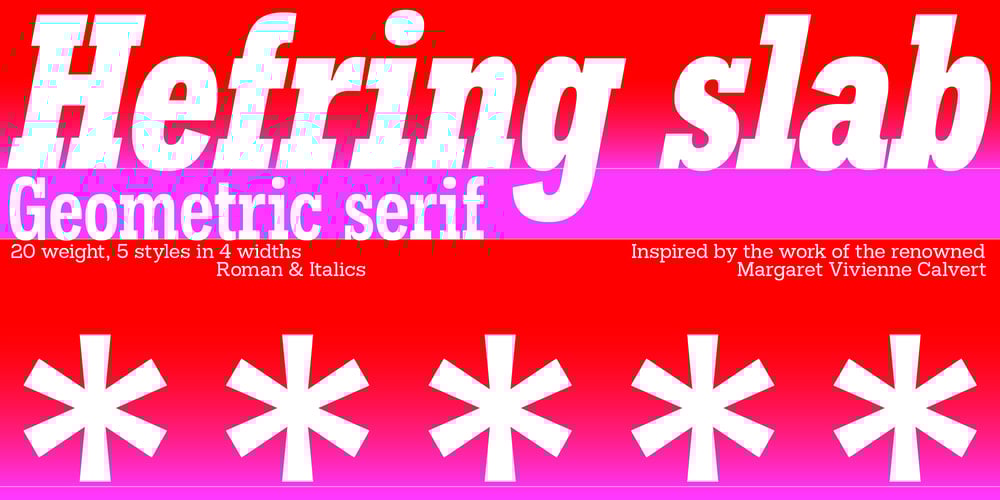
Hefring Slab Font Family was designed by Mariya Lish and published by Inhouse Type. Hefring Slab contains 40 styles and family package options. Hefring Slab is a geometric Slab Serif type family. Based on simple geometry, it has minimal stroke contrast, solid serif presence and a uniform thickness of strokes. The family consists of 20 fonts: 5 weights in 4 widths, each in Roman and Italic. Inspired by the work of the renowned Margaret Vivienne Calvert, Hefring Slab is robust, clear and functional. Opentype features include alternative characters, arrows, tabular figures, ligatures and fractions.